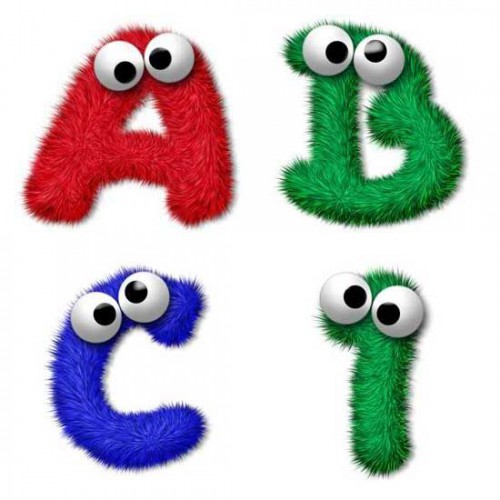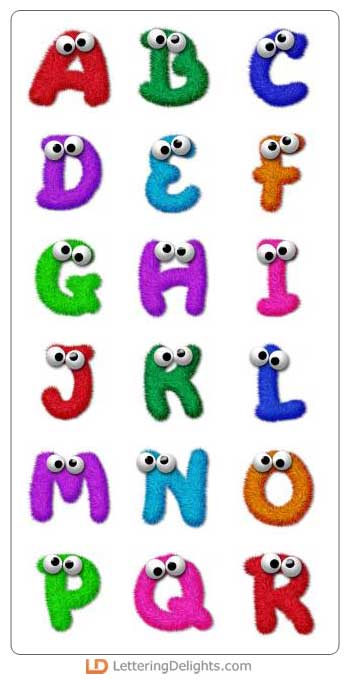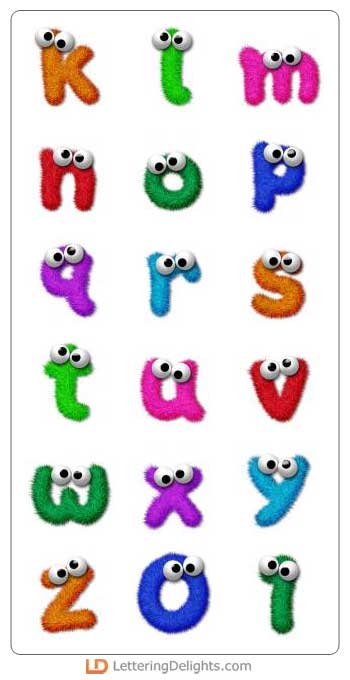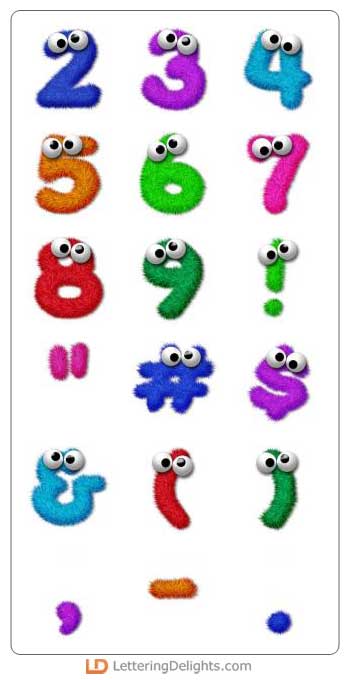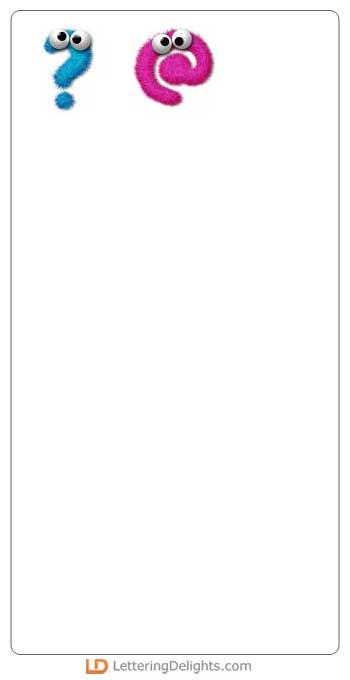
Don't these furry friends remind you of the muppets from Sesame Street? Spiff up your little monster scrapbook pages, letters, cards, bulletin boards or other publications with this fuzzy googly-eyed alphabet.